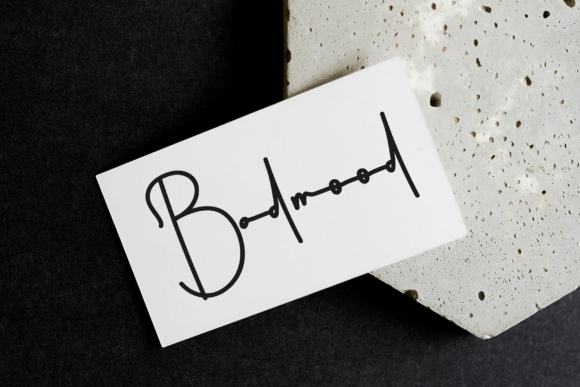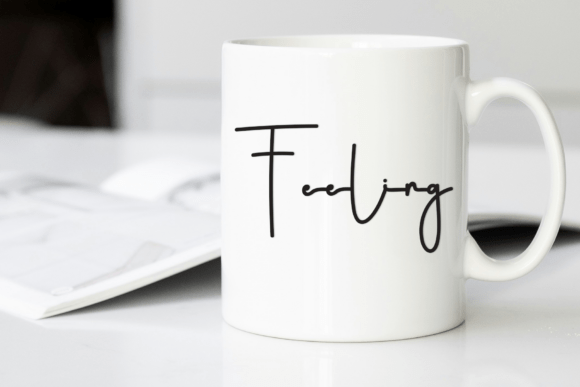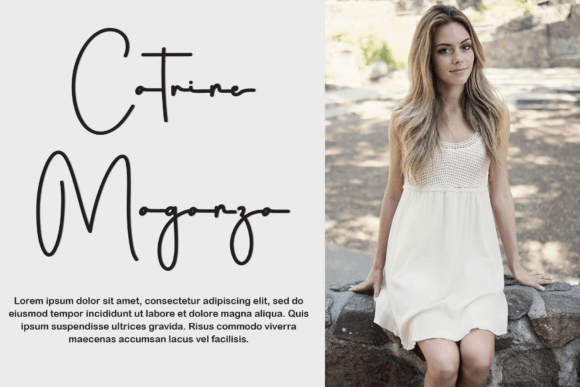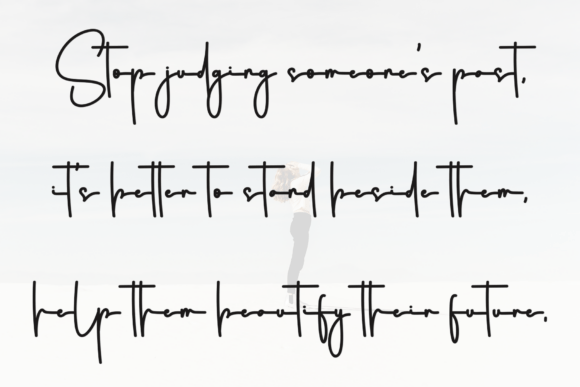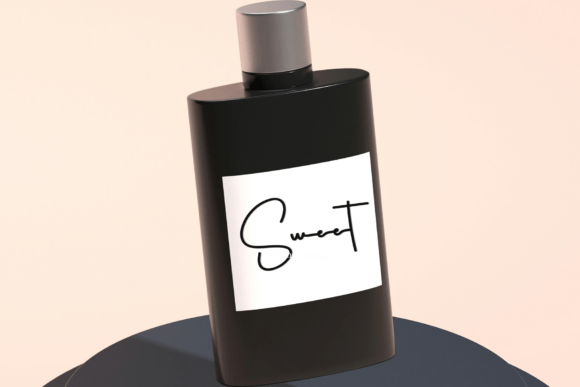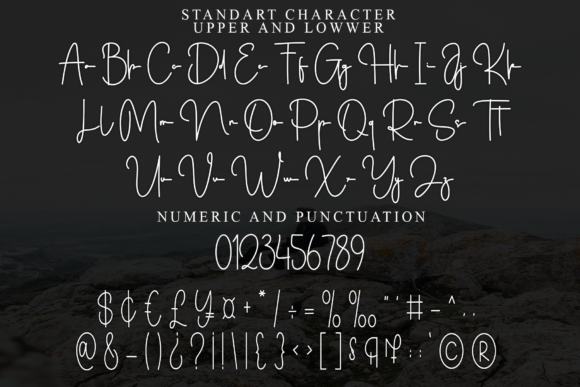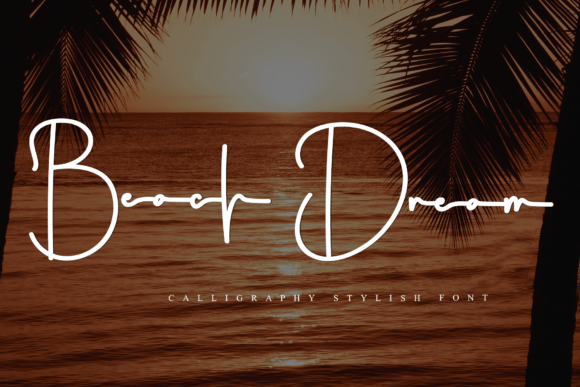
Introducing Beach Dream Font: Elevate Your Designs with a Touch of Elegance
Are you a designer, crafter, or creative looking for a font that can add a unique touch to your projects? Look no further than Beach Dream Font, a beautiful and eye-catching typeface that is sure to make your designs stand out. With its soft, unique strokes and distinctive character, Beach Dream Font is the perfect choice for a wide range of creative projects.
The Beauty of Beach Dream Font
Beach Dream Font is a carefully crafted font that boasts a soft, elegant look. Its unique strokes give it a special character that sets it apart from other fonts, making it meaningful and versatile for future use. Whether you’re working on a design project, crafting a handmade card, or creating a digital masterpiece, Beach Dream Font is the perfect choice.
Key Features of Beach Dream Font
• Unique and Distinctive Strokes: Beach Dream Font features distinctive strokes that give it a special character, making it perfect for designs that require a touch of elegance.
• Variety of Characters: With a wide range of characters, Beach Dream Font is perfect for a variety of design projects, from handmade crafts to digital creations.
• Natural Font Style: The natural font style of Beach Dream Font makes it perfect for designs that require a touch of whimsy and elegance.
Beach Dream Font is perfect for a wide range of design projects and crafts, including:
• Handmade Cards and Invitations: Add a touch of elegance to your handmade cards and invitations with Beach Dream Font.
• Digital Creations: Use Beach Dream Font to add a touch of whimsy and elegance to your digital creations, from social media graphics to website headers.
• Branding and Packaging: Beach Dream Font is perfect for branding and packaging projects that require a touch of sophistication and elegance.
• DIY Projects: Use Beach Dream Font to add a personal touch to your DIY projects, from scrapbooking to crafting.
Why Choose Beach Dream Font?
There are many reasons why Beach Dream Font is the perfect choice for designers and crafters. Here are just a few:
• Unique and Eye-Catching: Beach Dream Font is a unique and eye-catching font that is sure to make your designs stand out.
• Versatile: Beach Dream Font is versatile and can be used in a variety of settings, from design projects to crafts.
• Easy to Use: Beach Dream Font is easy to use and compatible with a range of applications, making it perfect for designers and crafters of all levels.
Beach Dream Font is a beautiful and eye-catching font that is perfect for designers and crafters looking to add a touch of elegance to their projects. With its unique strokes, variety of characters, and compatibility with various applications, Beach Dream Font is the perfect choice for a wide range of creative projects. Whether you’re working on a design project, crafting a handmade card, or creating a digital masterpiece, Beach Dream Font is sure to elevate your designs and make them appealing to a wide range of audiences.